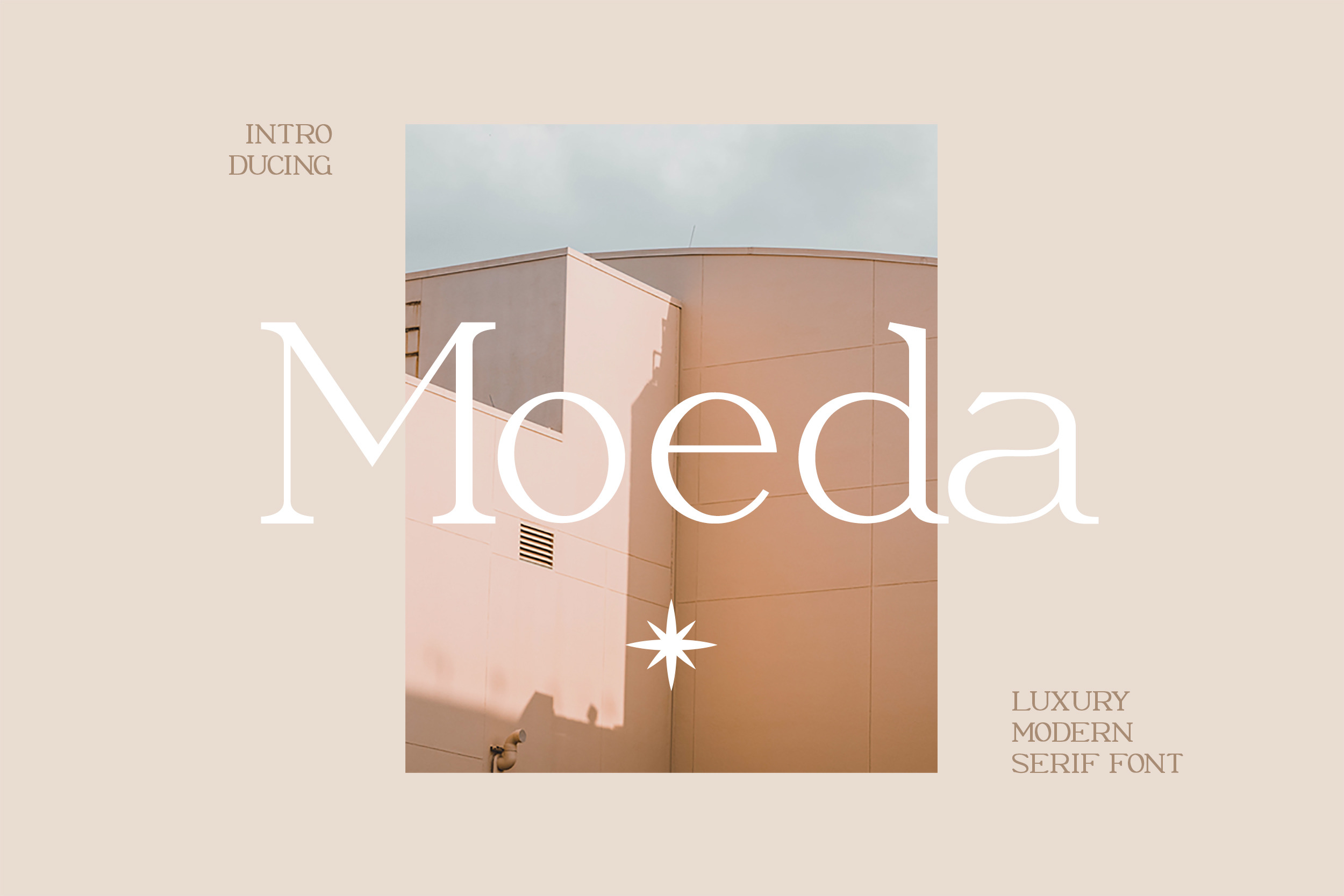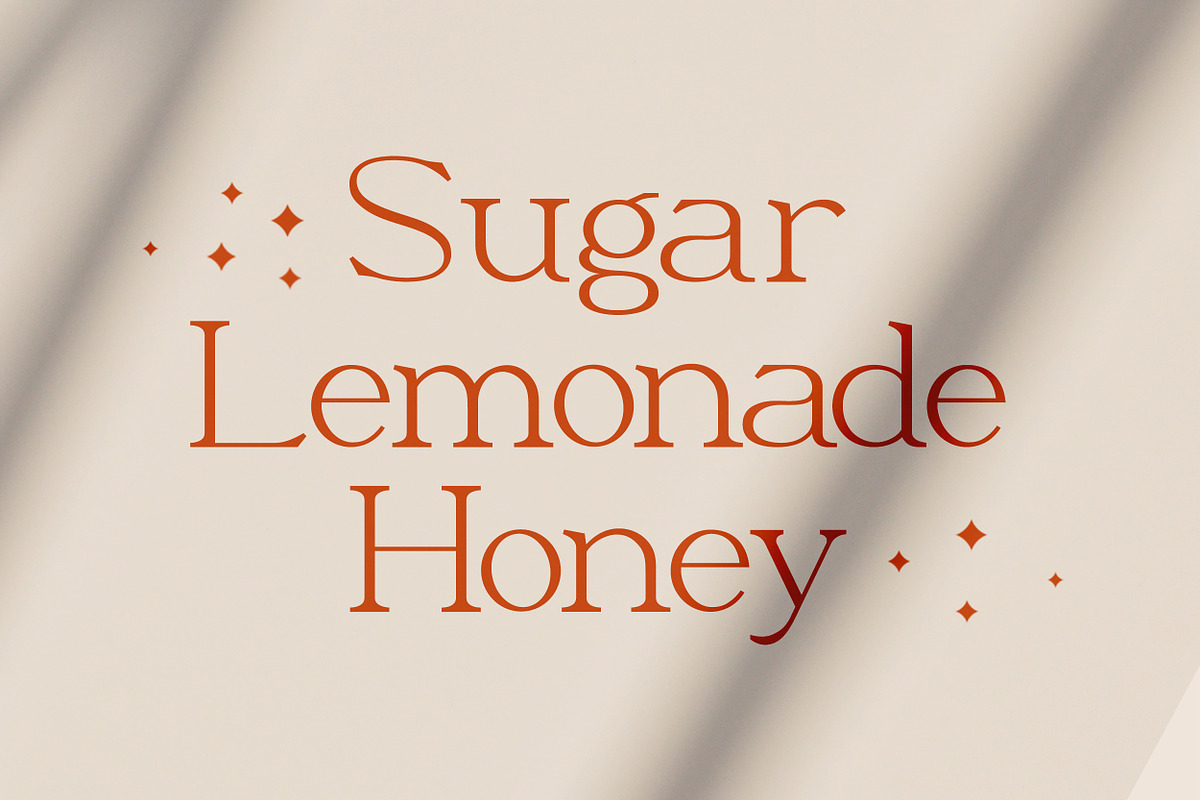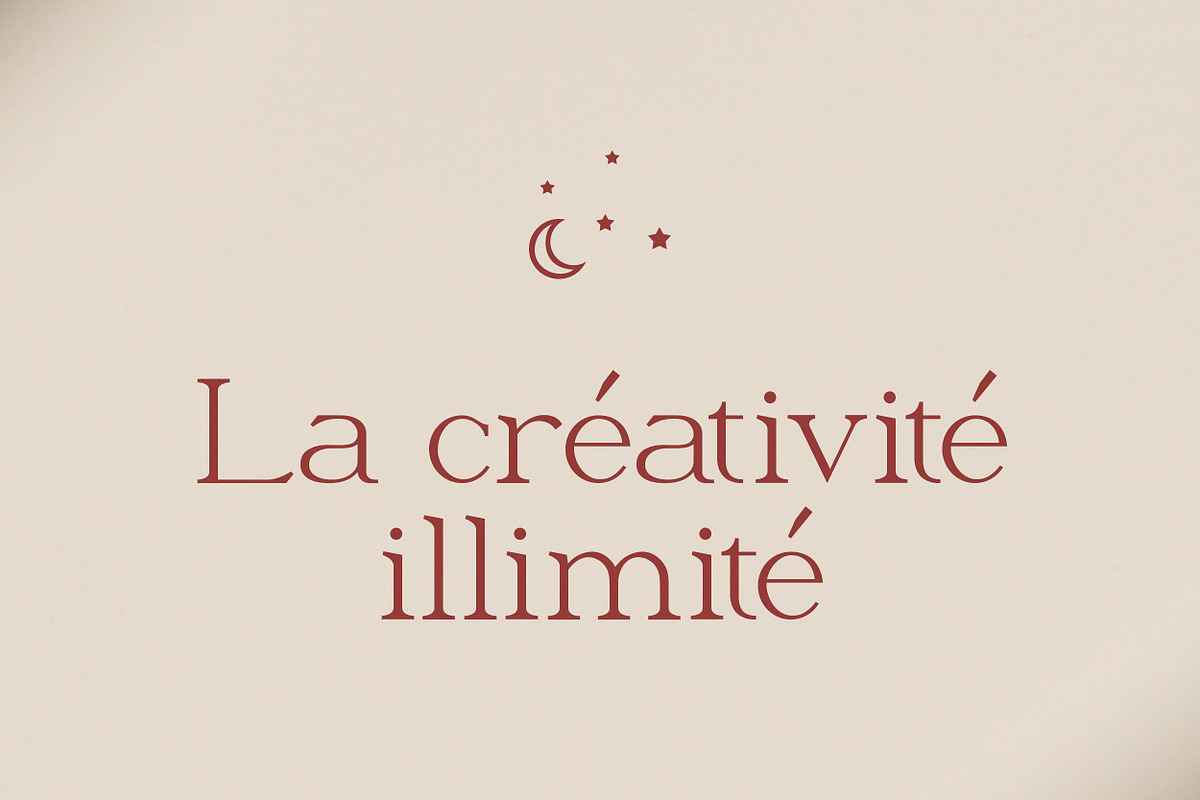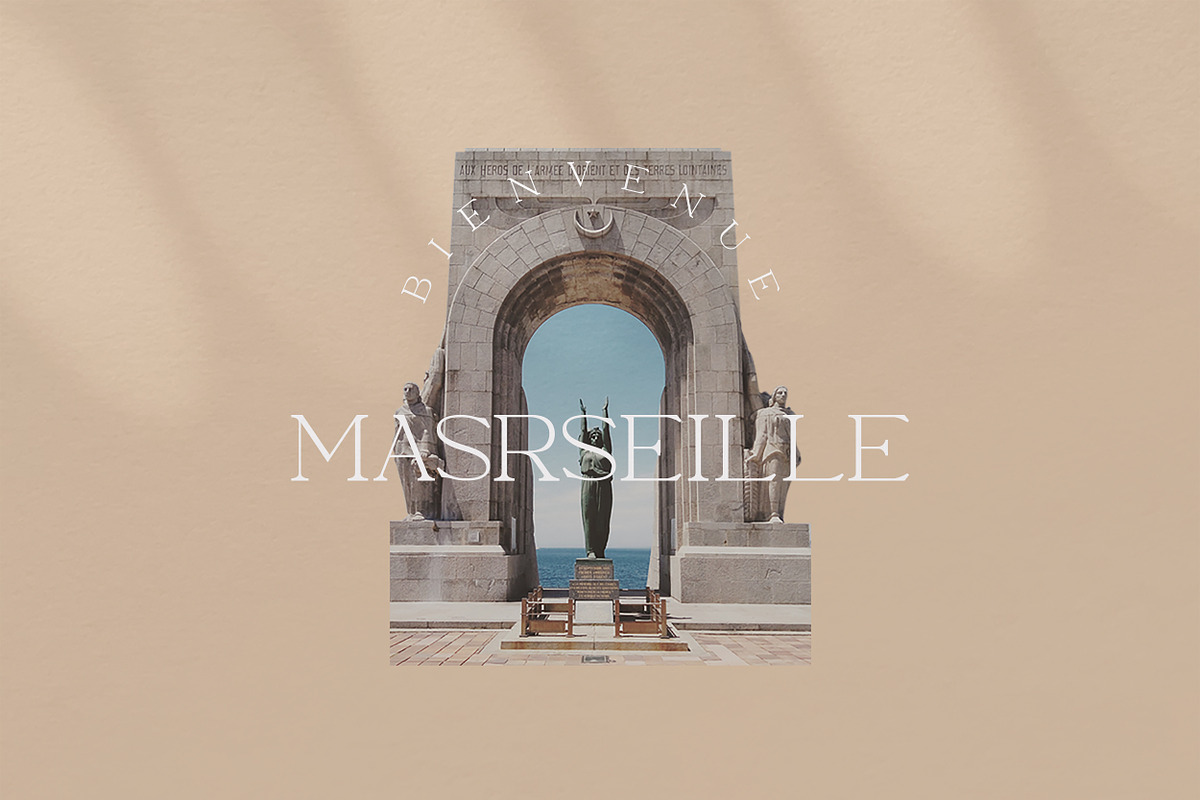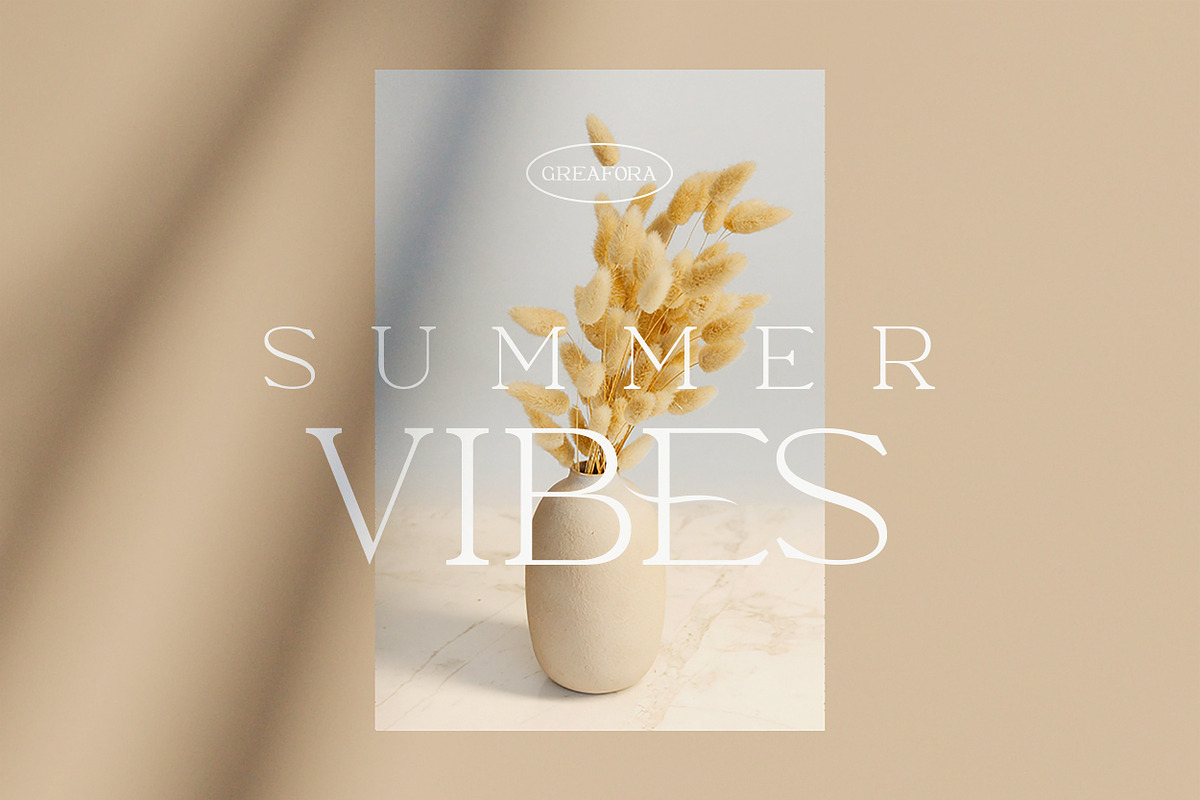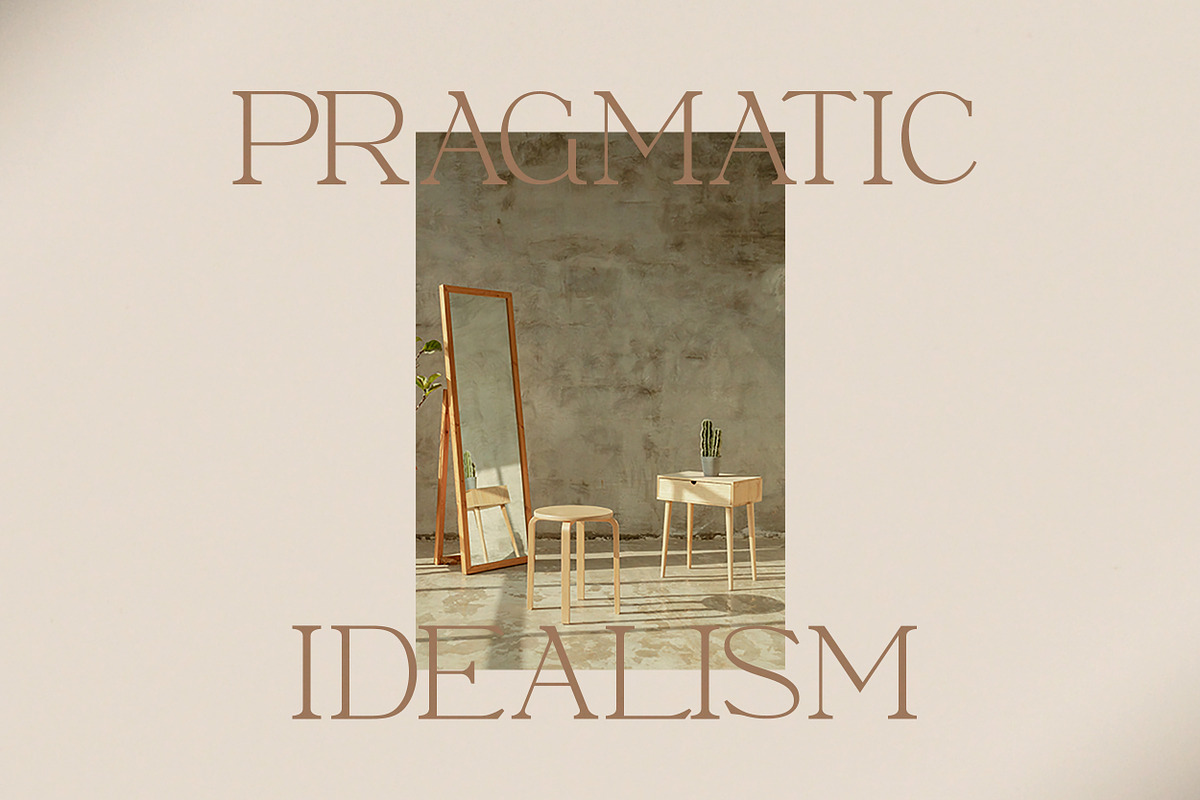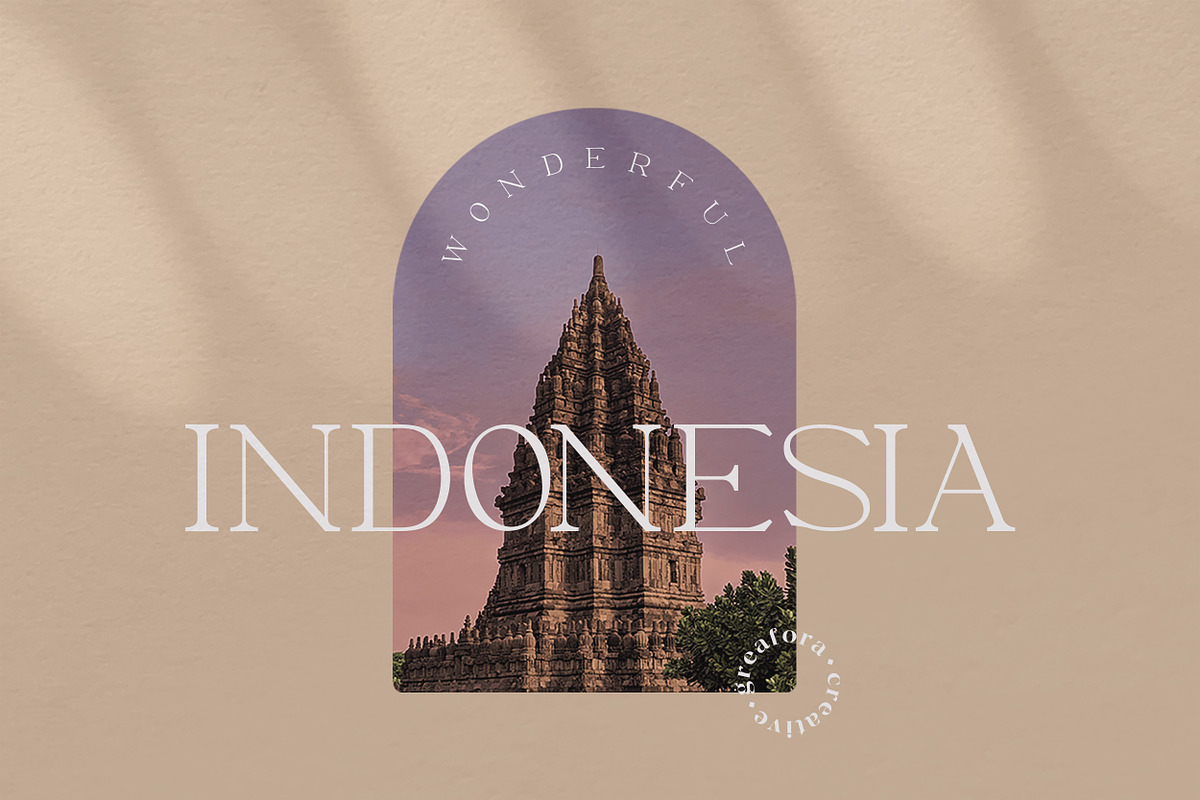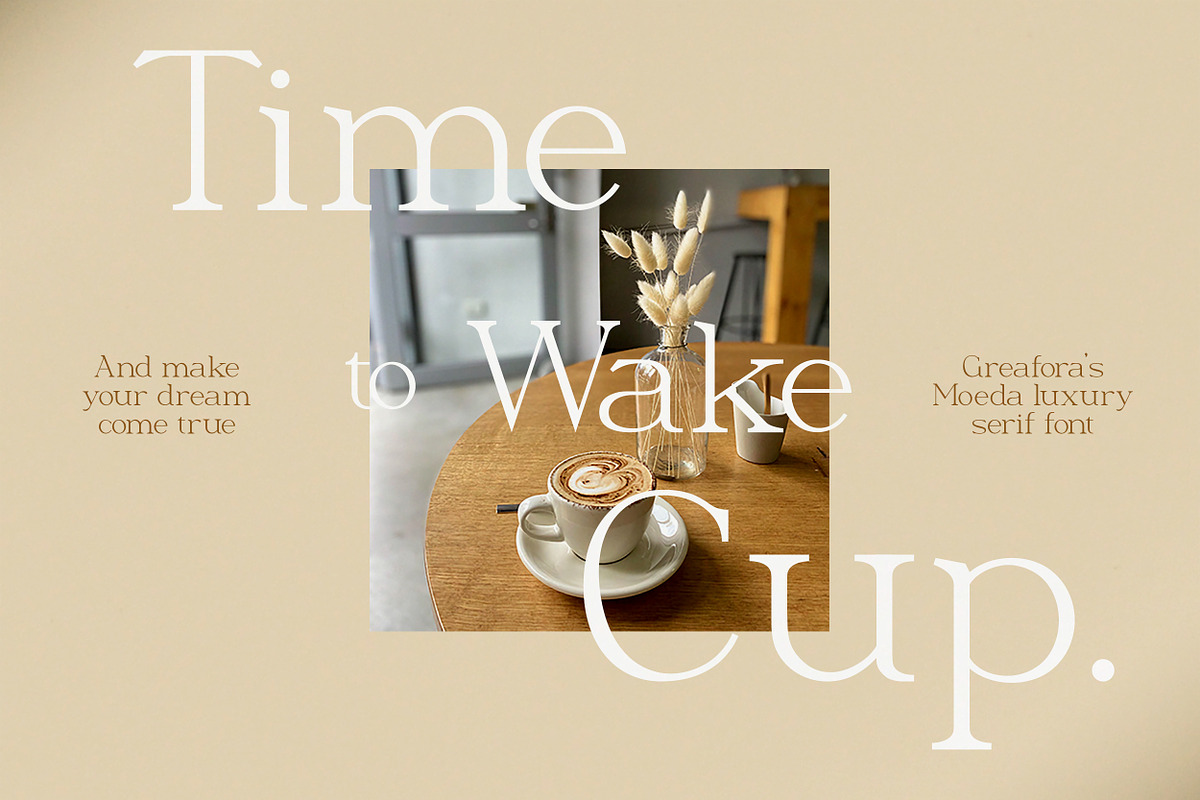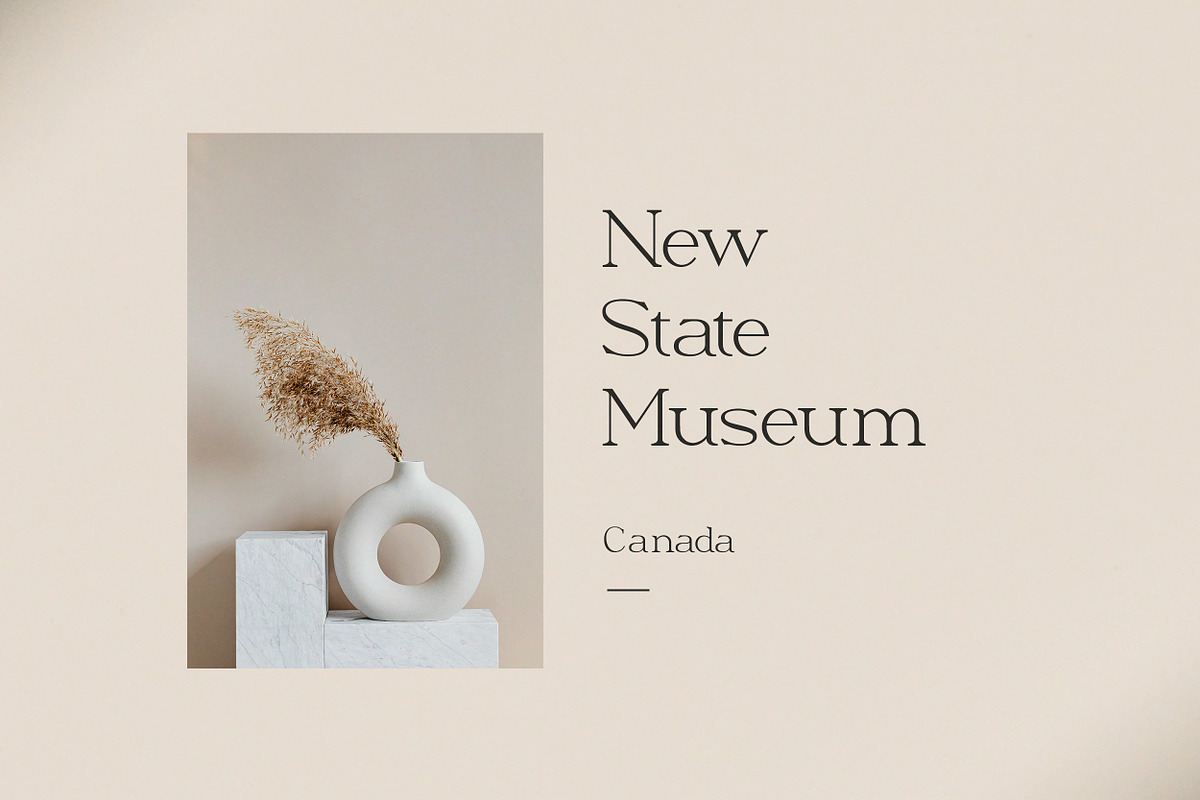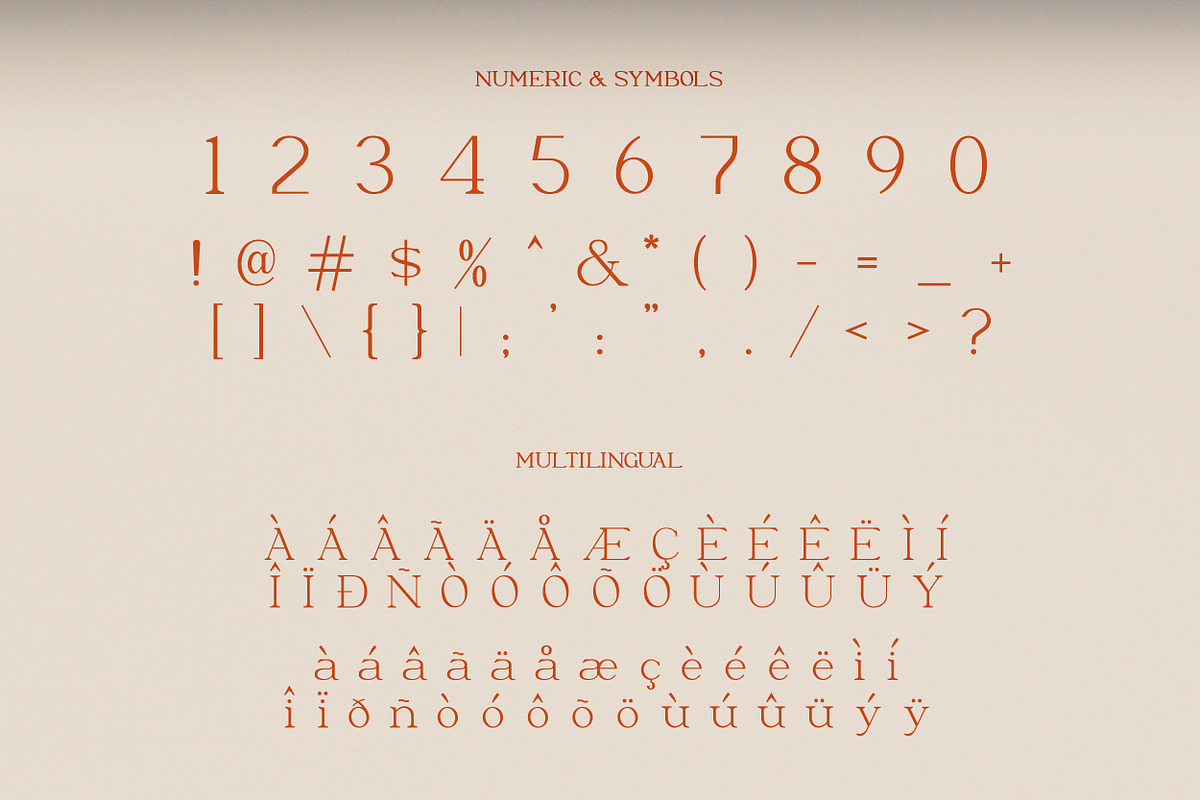
Moeda Luxury Serif Font
Moeda - Luxury Serif Font
Moeda is a serif look with simple, clean, and formal elegance. Specially designed for elegant themed projects, it is perfect for creating simple and clean lifestyle designs, such as logos, titles, magazines, and more.
What's the feature included?
- Uppercase Characters
- Lowercase Characters
- Punctuation, Numerical, Alternates
Multilingual support for various languages including: French, German, Spanish, Portuguese, Italian, Dutch, Finnish, Swedish, and more.